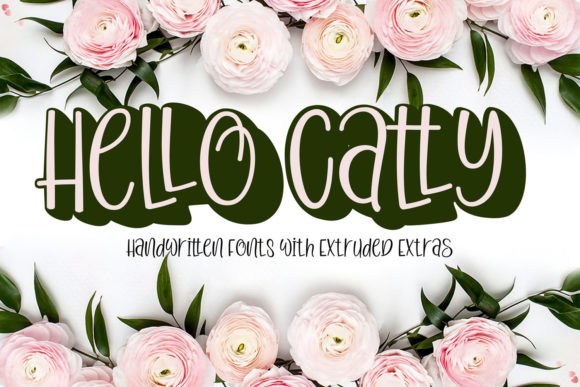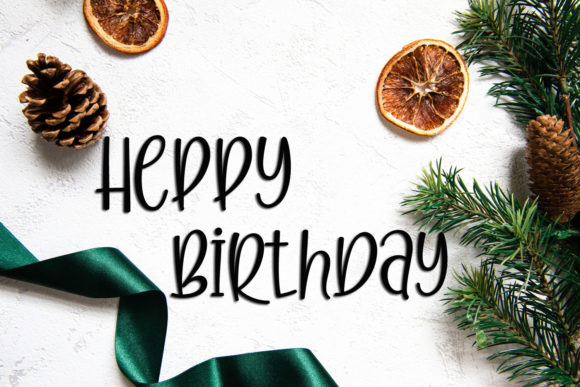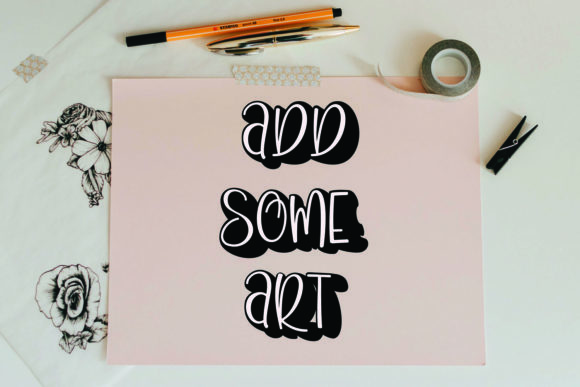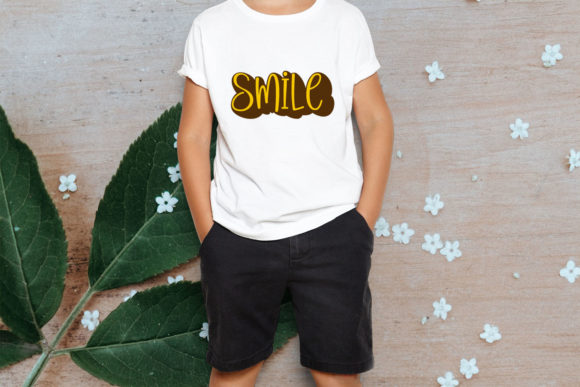
About Hello Catty Font
Hello Catty is a cute and casual handwritten font with an incredibly friendly feel. Whether you’re looking for fonts for Instagram or calligraphy scripts for DIY projects, this font will turn any creative idea into a true piece of art!